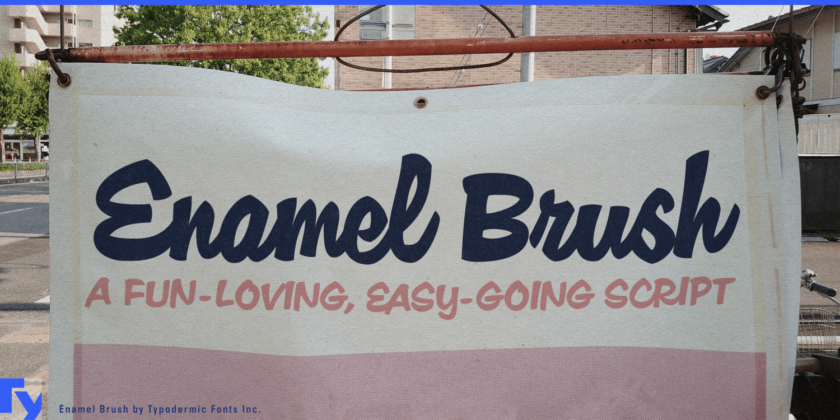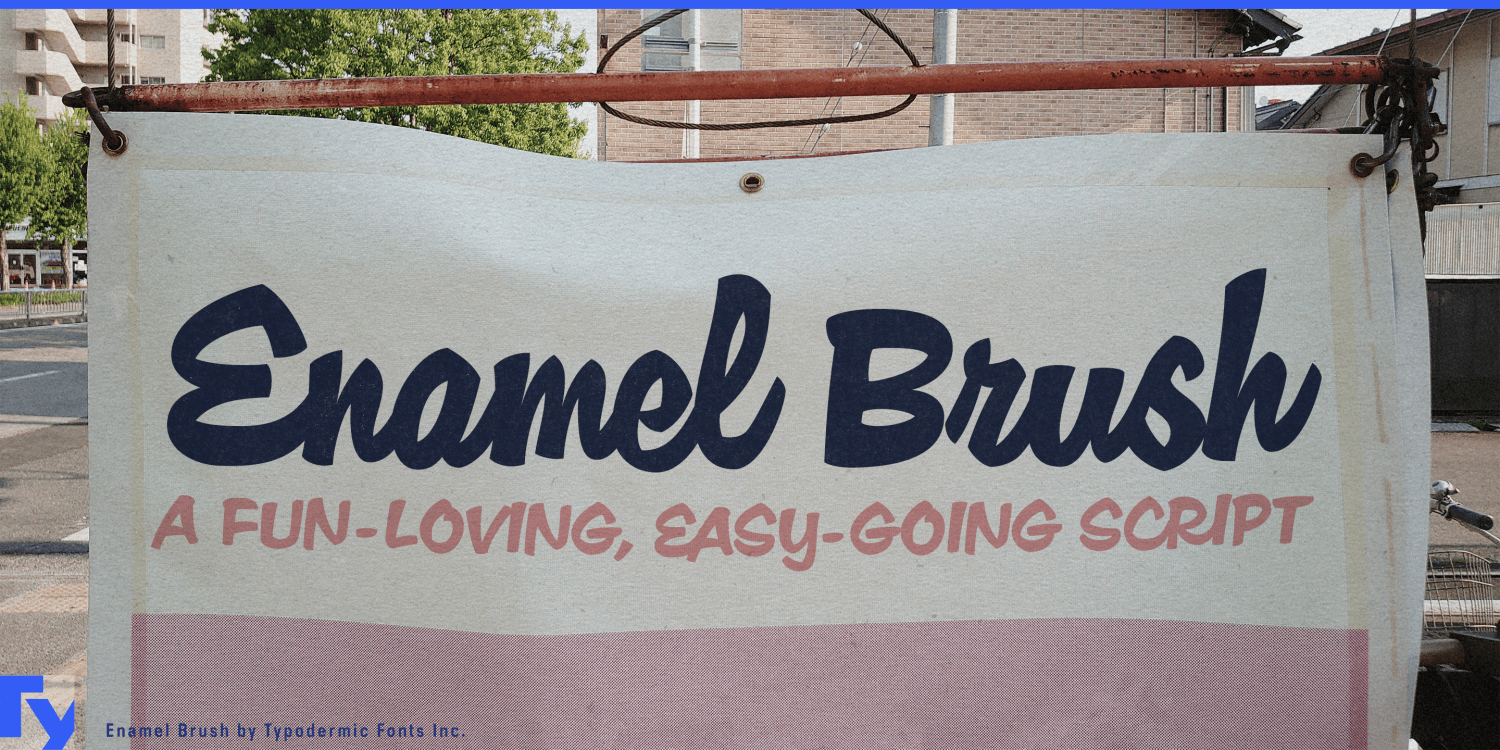
About Enamel Brush
Step back in time with Enamel Brush, a typeface that captures the vibrant spirit of mid-century design while catering to contemporary needs. Inspired by Emil Klumpp’s iconic Catalina typeface from 1955, Enamel Brush breathes new life into the post-war…